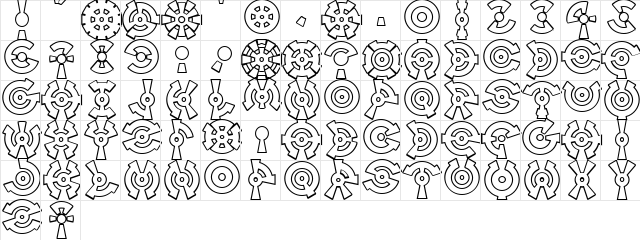
Anillo Outline Outline
| Designer | Aneel Nazareth |
Design Context for Anillo Outline Typeface
Anillo Outline brings ornamental detail and strong personality to headlines and identities, where visual impact matters more than quiet functionality.
Font Pairing: Pair with a clean neutral sans-serif for body copy to let Anillo Outline's character lead without overwhelming the composition.
Pro Tip: Use Anillo Outline exclusively at display sizes — it was designed to be seen, not read at length. Let a neutral companion handle body copy.